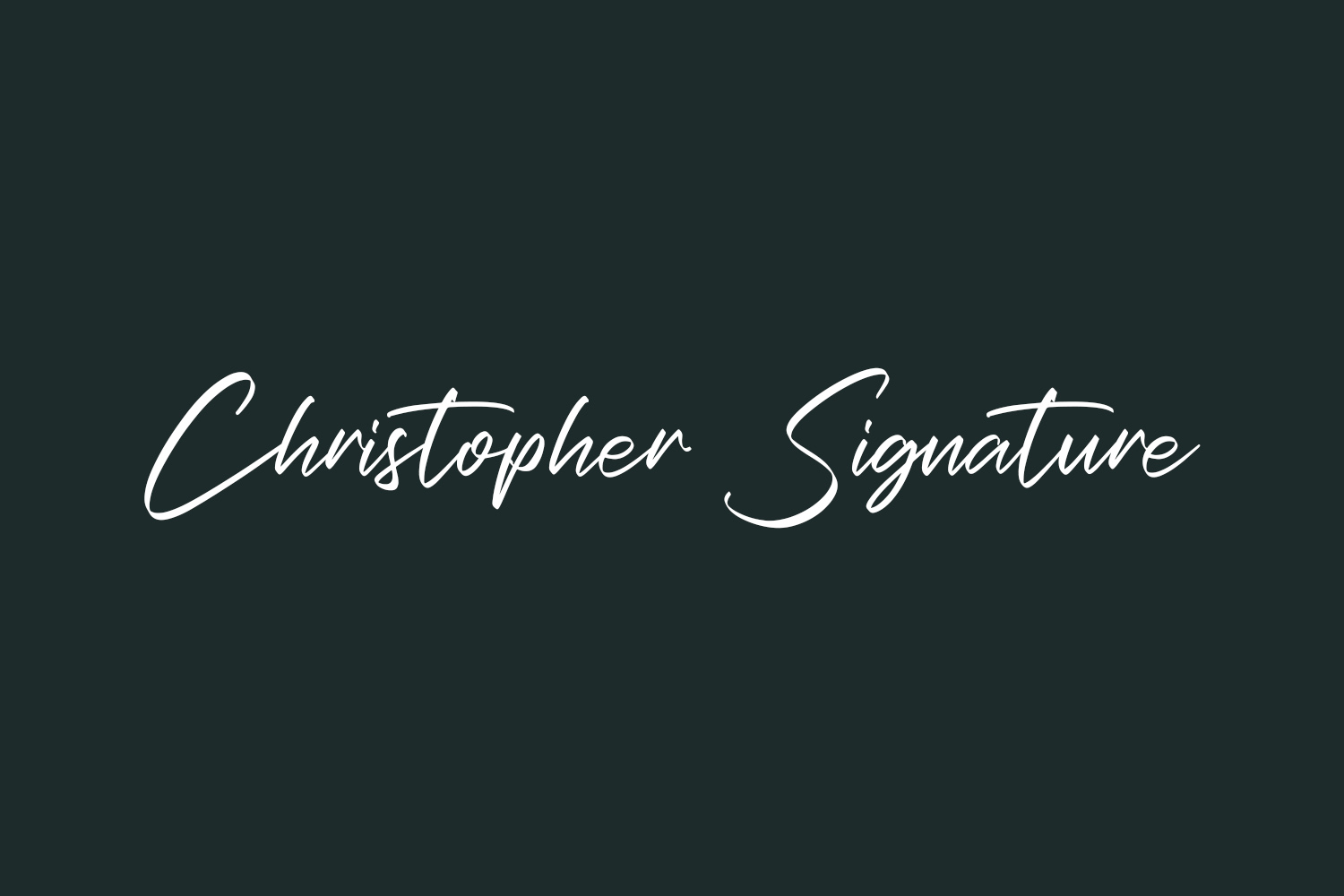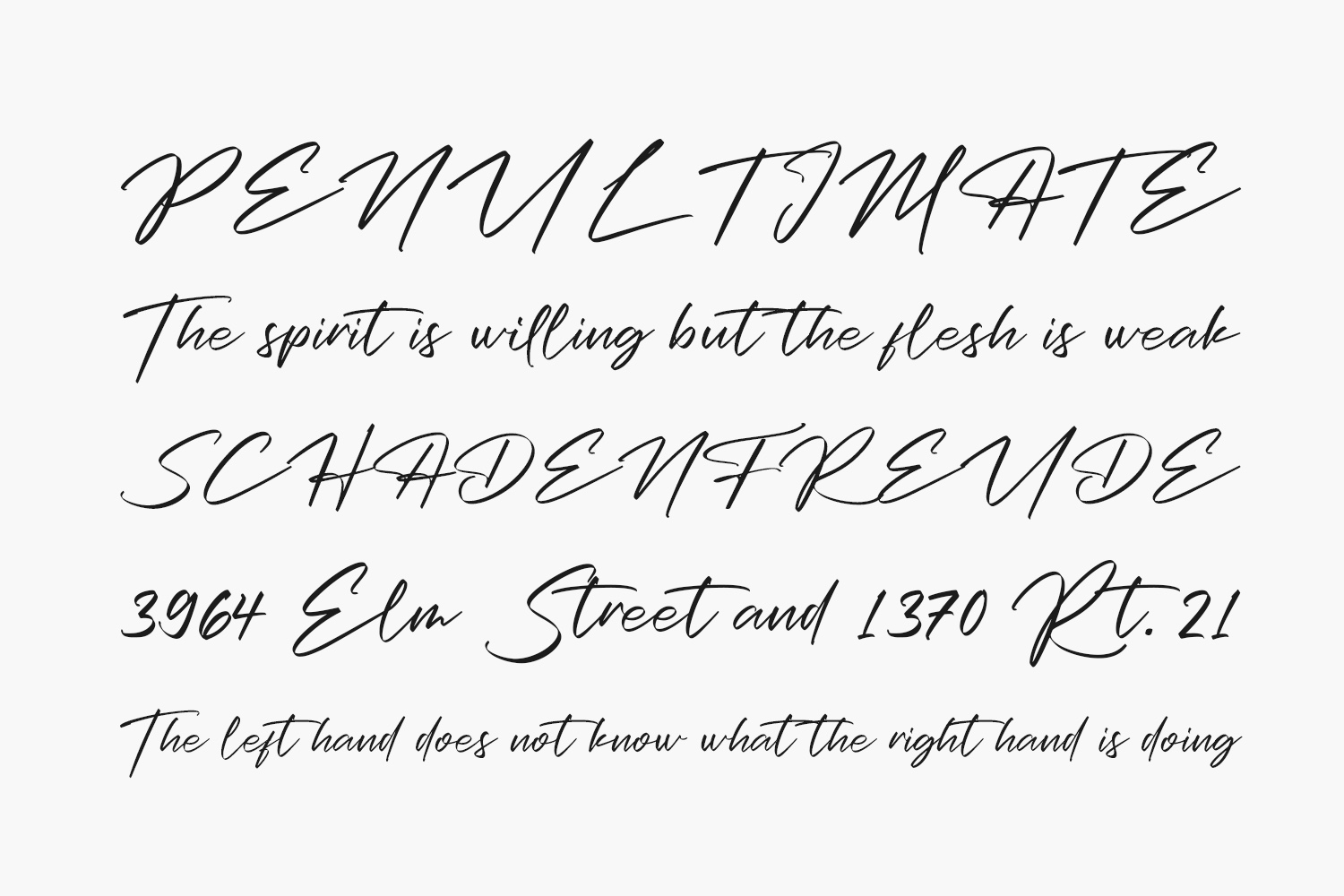
Christopher Signature Free Font Family is a cool, flowing and beautiful script font. It looks stunning on wedding invitations, thank you cards, quotes, greeting cards, logos, business cards, and every other design which needs a customized touch. Christopher Signature Free Font Family was designed by Perspectype Studio and is free for personal use only. Please purchase the full version for commercial use.